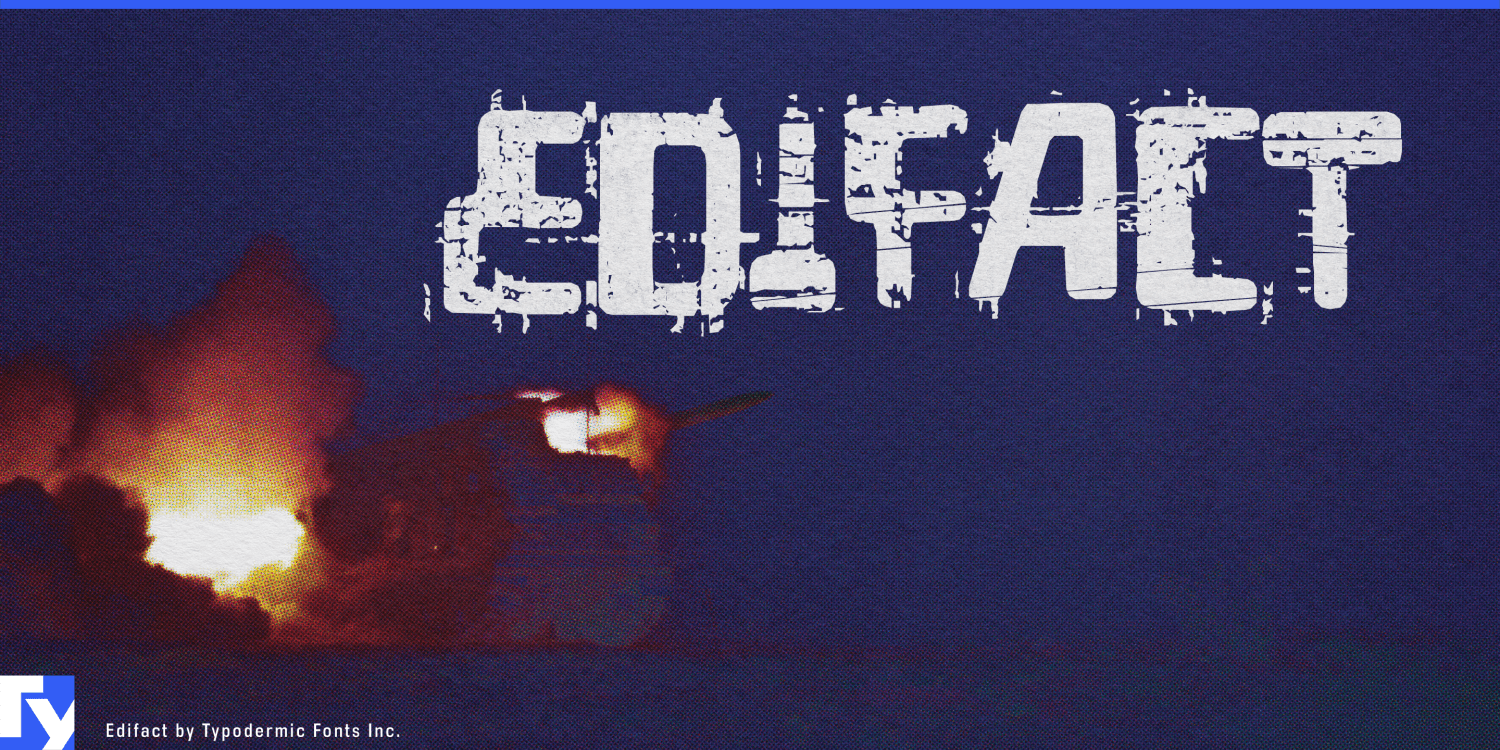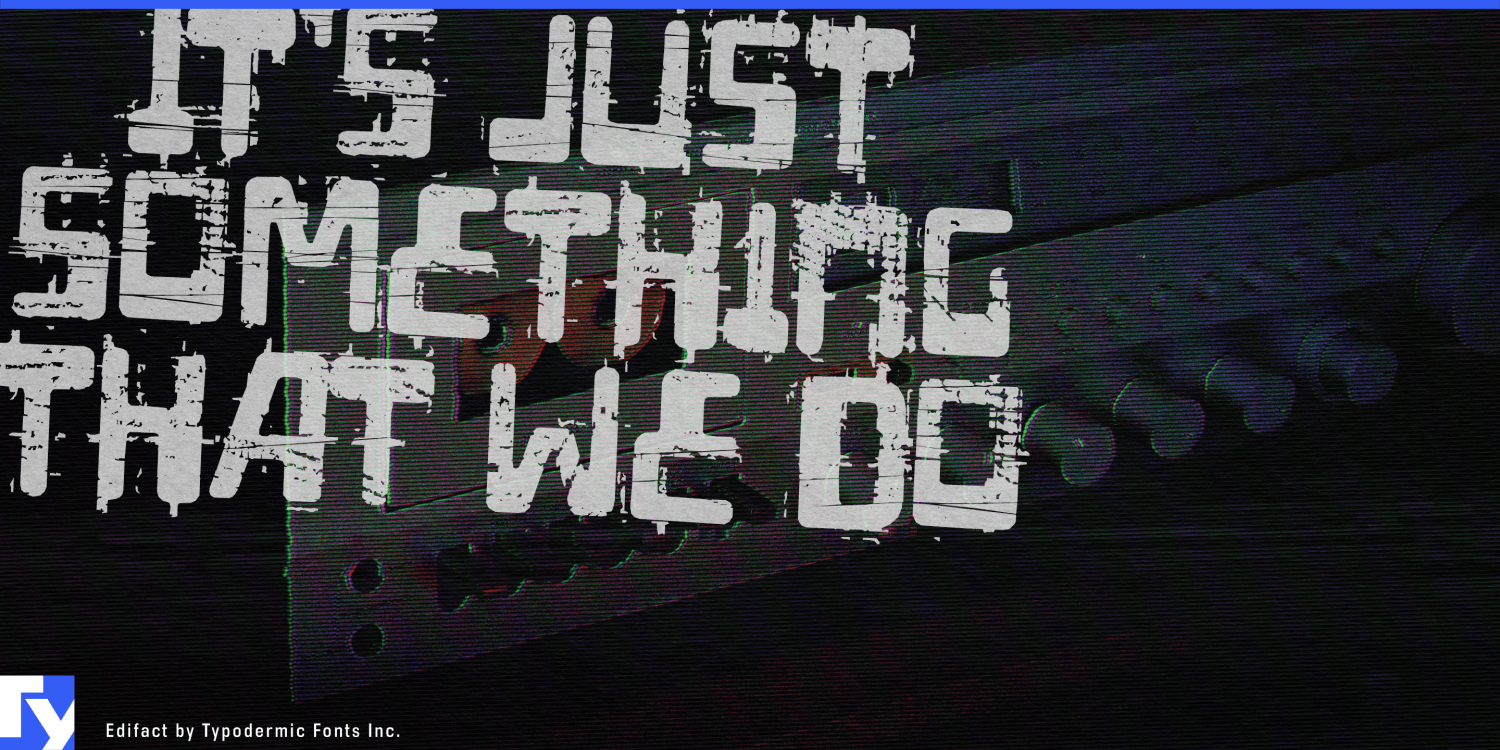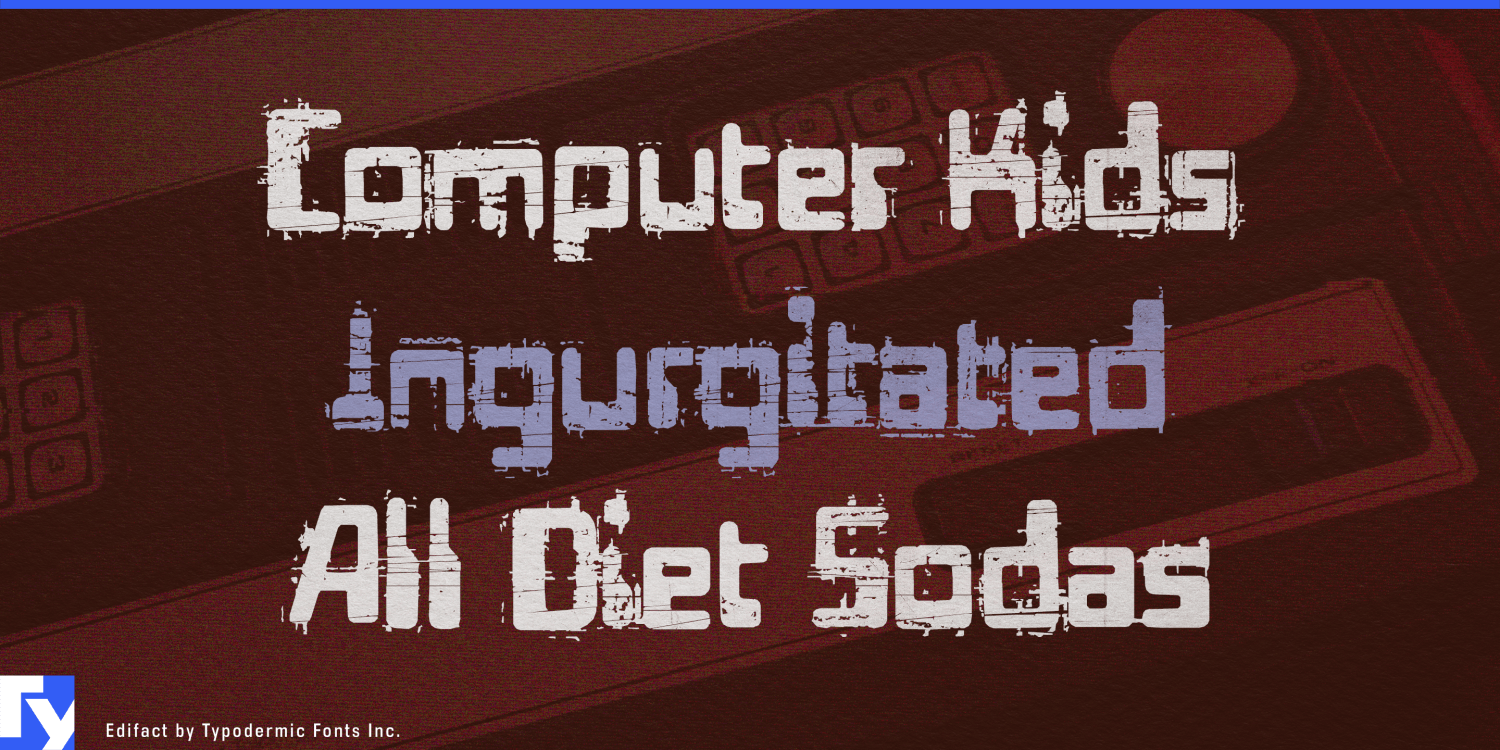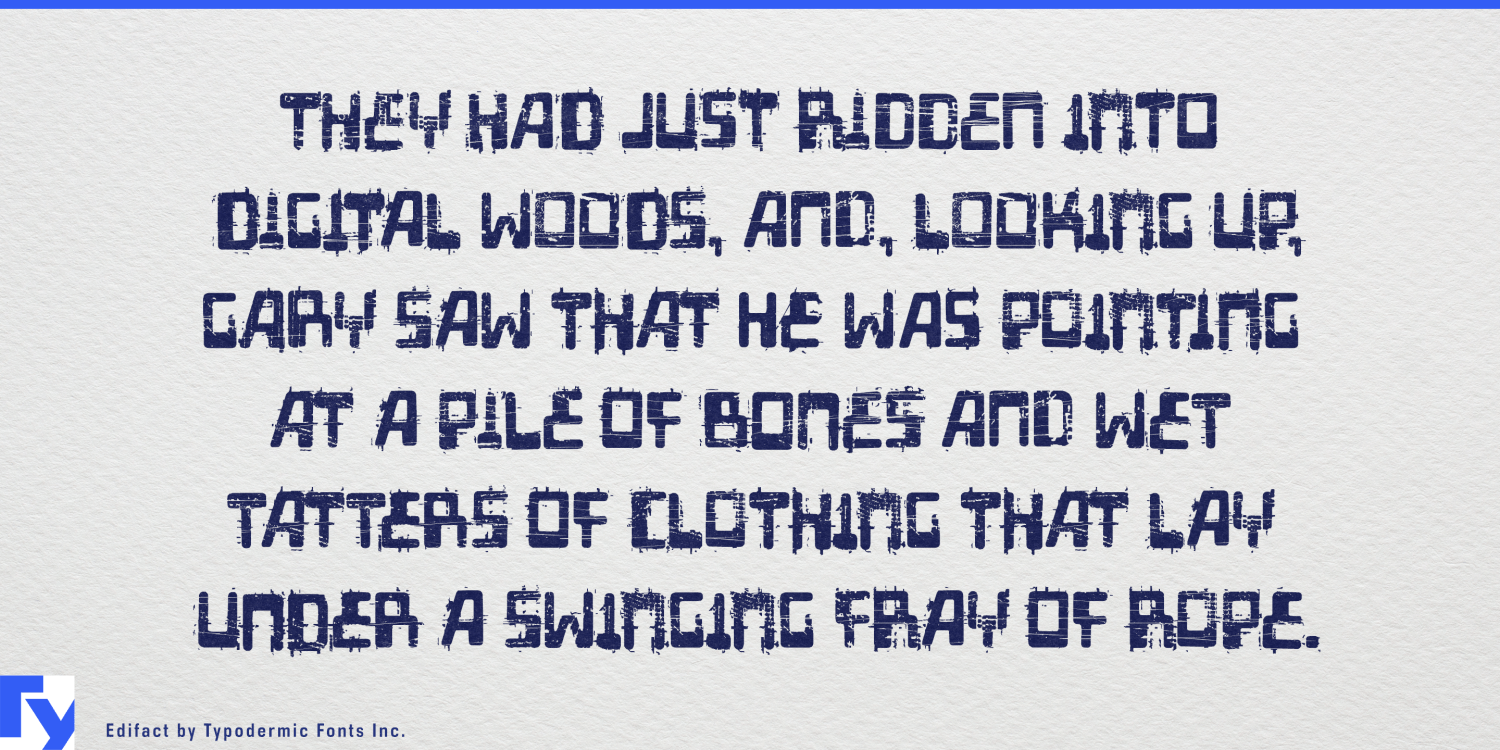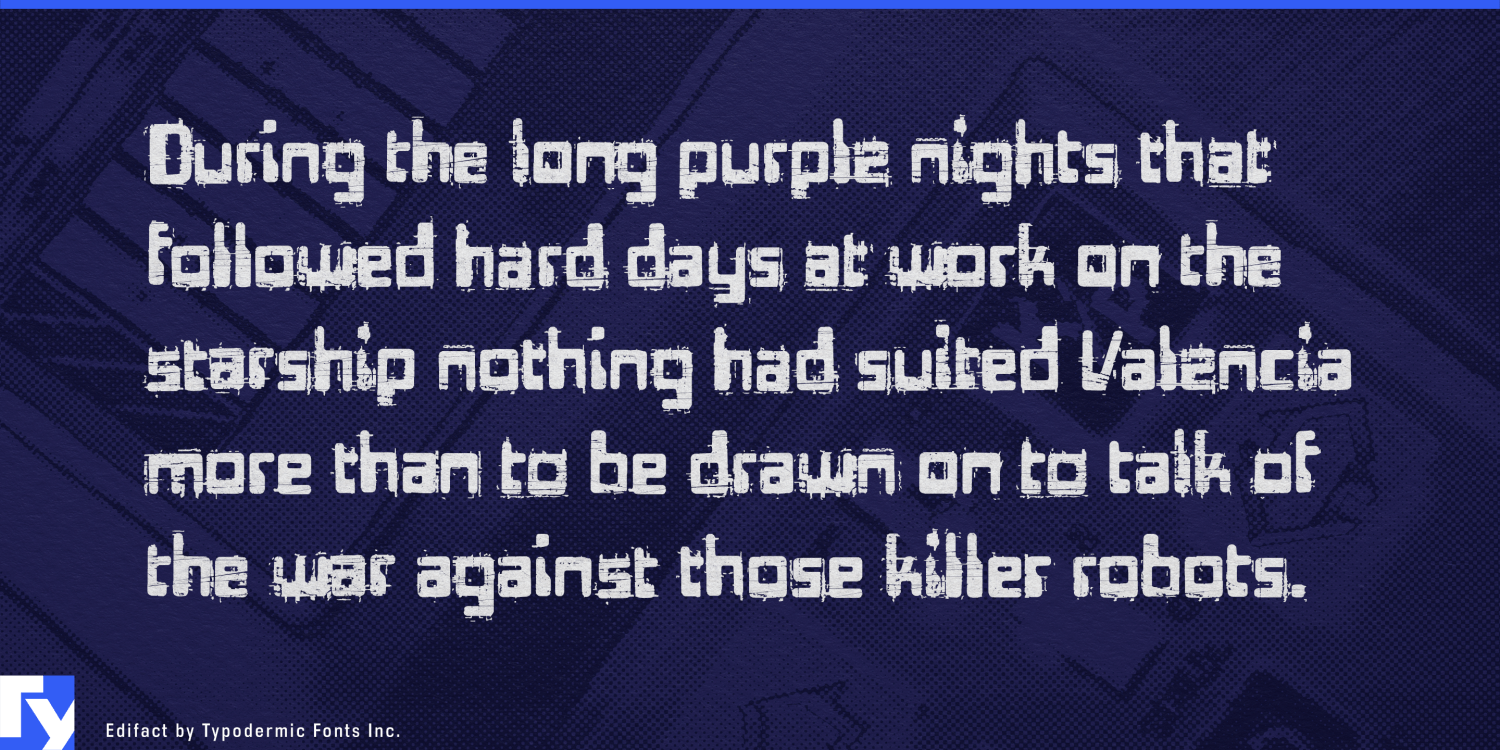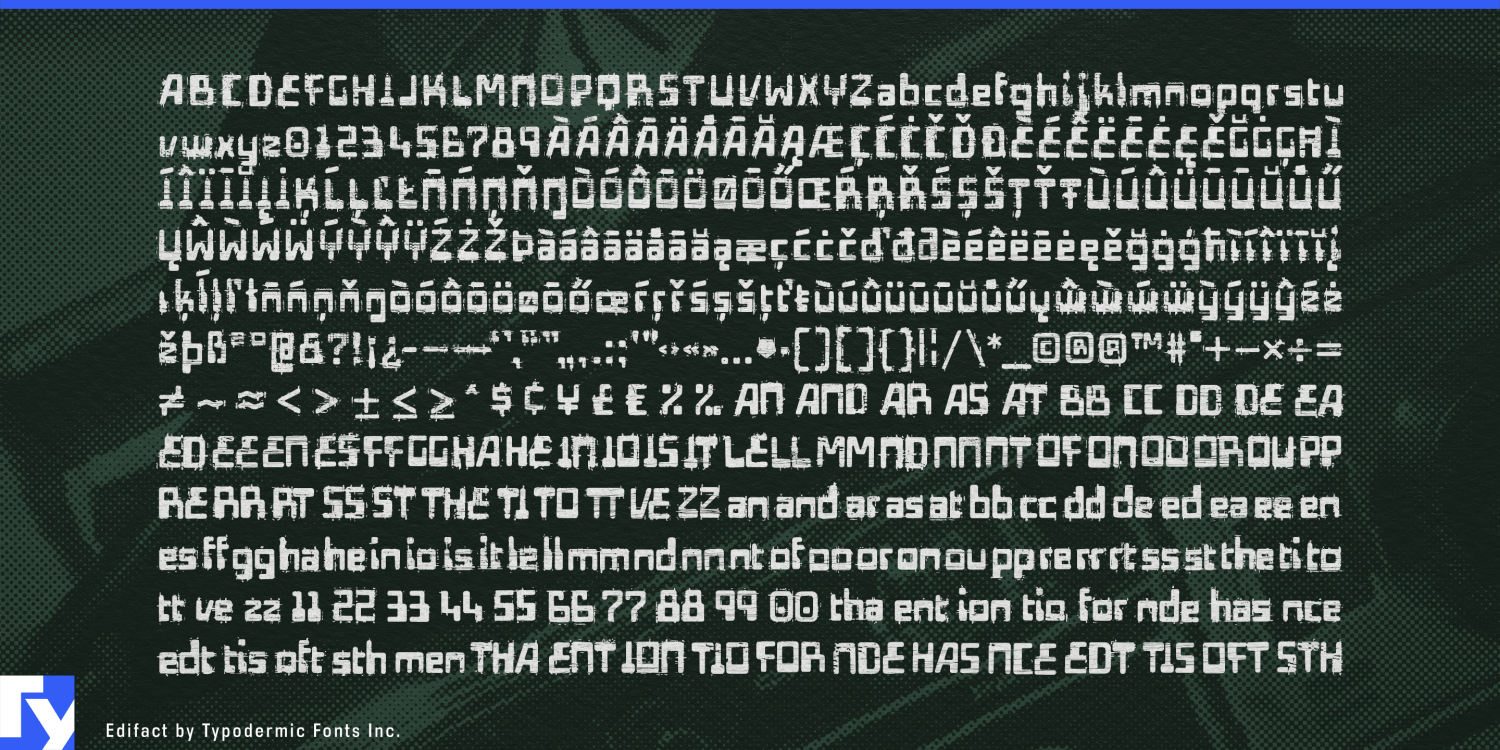
Edifact
Font Family by Typodermic
Distressed technical lettering often looks scratched, poorly printed or worn by age. Edifact looks as though something much worse happened. Its machine-derived skeleton is broken by deep interruptions and missing sections that suggest impact, structural failure and serious mechanical damage.
That places Edifact in a particular strain of early-to-mid-1970s dystopia: laboratories, reactors, concrete infrastructure, corporate authorities and elaborate systems that are still running while the world around them comes apart.
Infrastructure failure is a natural fit. Blackout documentaries, nuclear-accident features, collapsed-dam investigations, refinery disasters and abandoned megaprojects can use Edifact for titles and major headings. Containment scenarios, sealed laboratories, quarantine thrillers, resource-management games and stories about energy, water or food shortages exploit the same contrast between organized systems and visible breakdown.
Damaged machinery opens another territory. Demolition derbies, scrapyard events, post-collapse vehicle games, desert survival races and salvage graphics can use Edifact where ordinary distress would feel too decorative. Industrial archaeology provides the real-world counterpart: decommissioned power stations, Cold War bunkers, abandoned factories and obsolete civic complexes all suit lettering that combines technological optimism with evidence of failure.
Edifact also works for fictional bureaucracy; corporate directives, ration cards, sector identifiers and facility graphics can use its technical structure to establish order while the damage undermines it. Pair it with a quieter face for instructions and longer information.
Edifact is lettering for systems under stress: infrastructure breaking down, facilities being sealed, resources running short, machines surviving damage and institutions trying to function after the future has stopped going according to plan.